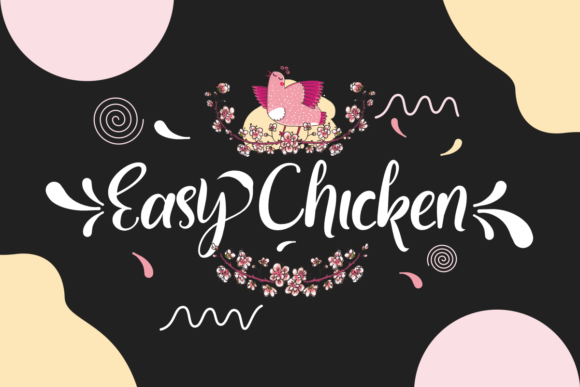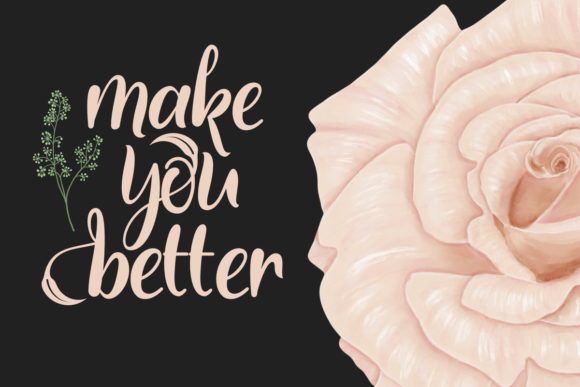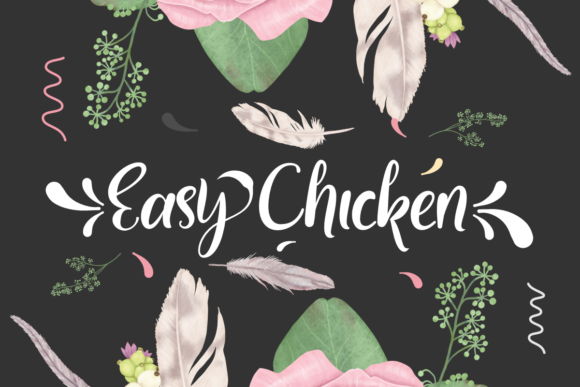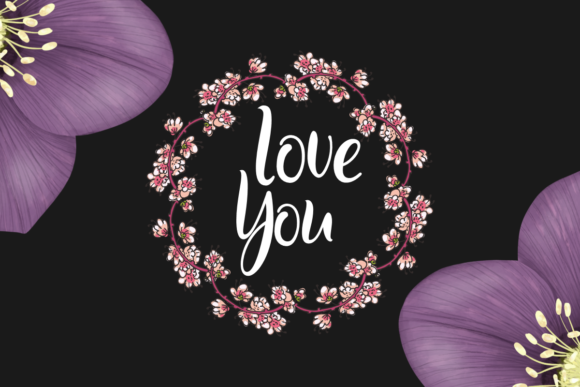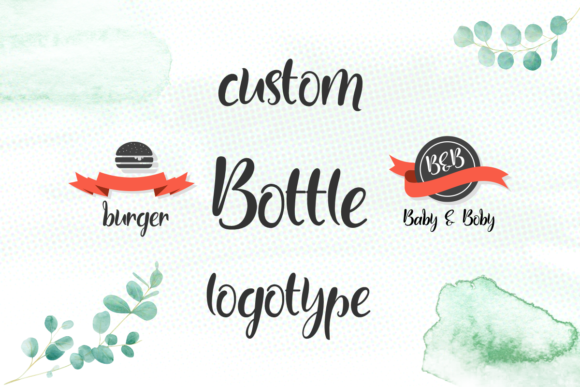
The Perfect Font to Make Your Designs Cluck with Joy
Have you ever been working on a design project and just couldn’t find the right font to give it that extra oomph? You’ve got the perfect image, the perfect color palette, but something’s just missing? That’s when you stumble upon the perfect font – one that adds a touch of whimsy and personality to your design.
Enter the Easy Chicken Font, a delightful handwritten font that’s sure to make your designs stand out from the crowd. With its modern-cute touch, it’s perfect for branding, crafts, headings, wedding designs, invitations, logos, labels, cartoon, and much more. And the best part? It’s PUA encoded, making it easy to access all of the cute glyphs and ornaments with ease.
Easy Chicken Font Key Features
- Font Family: A unique, handwritten font designed to resemble chicken scratchings, ideal for creative and casual applications.
- Character Set: Includes uppercase and lowercase letters, numbers, and punctuation marks, making it a versatile font for everyday use.
- Size and Resolution: Designed to be scalable, with optimal readability at font sizes ranging from 12pt to 48pt, and resolution-independent for high-quality display on various devices.
- Unique Characteristics: Features a playful, whimsical feel, with subtle imperfections and variations in letterforms to create a natural, hand-written look.
Easy Chicken Font Review
Overall, I think the Easy Chicken Font is a decent choice for casual use, especially for food bloggers or social media platforms. Here are some aspects that work well:
- ✨ Unique and playful feel: The font has a distinctive look that’s perfect for adding some whimsy to your content.
- ✨ Readability: Despite its quirky design, the font is surprisingly easy to read, even at smaller font sizes.
- ✨ Versatility: You can use it for titles, headings, or even body text, depending on your design needs.
- ⚠️ Limited legibility at very small sizes: While it’s generally easy to read, the font can become difficult to decipher when shrunk down to very small sizes.
- ⚠️ Limited language support: I noticed that the font doesn’t support many languages, which might be a problem for global brands or publications.
- ⚠️ Not suitable for formal or professional use: The font’s playful design makes it better suited for casual or creative projects.
Overall, I think the Easy Chicken Font is a fun and quirky choice for the right project. Just be aware of its limitations and use it accordingly.
Tips for Getting the Most Out of Easy Chicken Font
Use Easy Chicken Font for creative and playful projects, such as:
– Party invitations
– Children’s book illustrations
Remember to use Easy Chicken Font in moderation, as it can be overwhelming if used too extensively.
Carolyna Pro is a modern and elegant script font that is perfect for creating a sophisticated and luxurious look. It is ideal for use in branding, packaging, and editorial design. Compared to Easy Chicken Font, Carolyna Pro has a more refined and polished feel, making it suitable for high-end projects that require a touch of elegance.